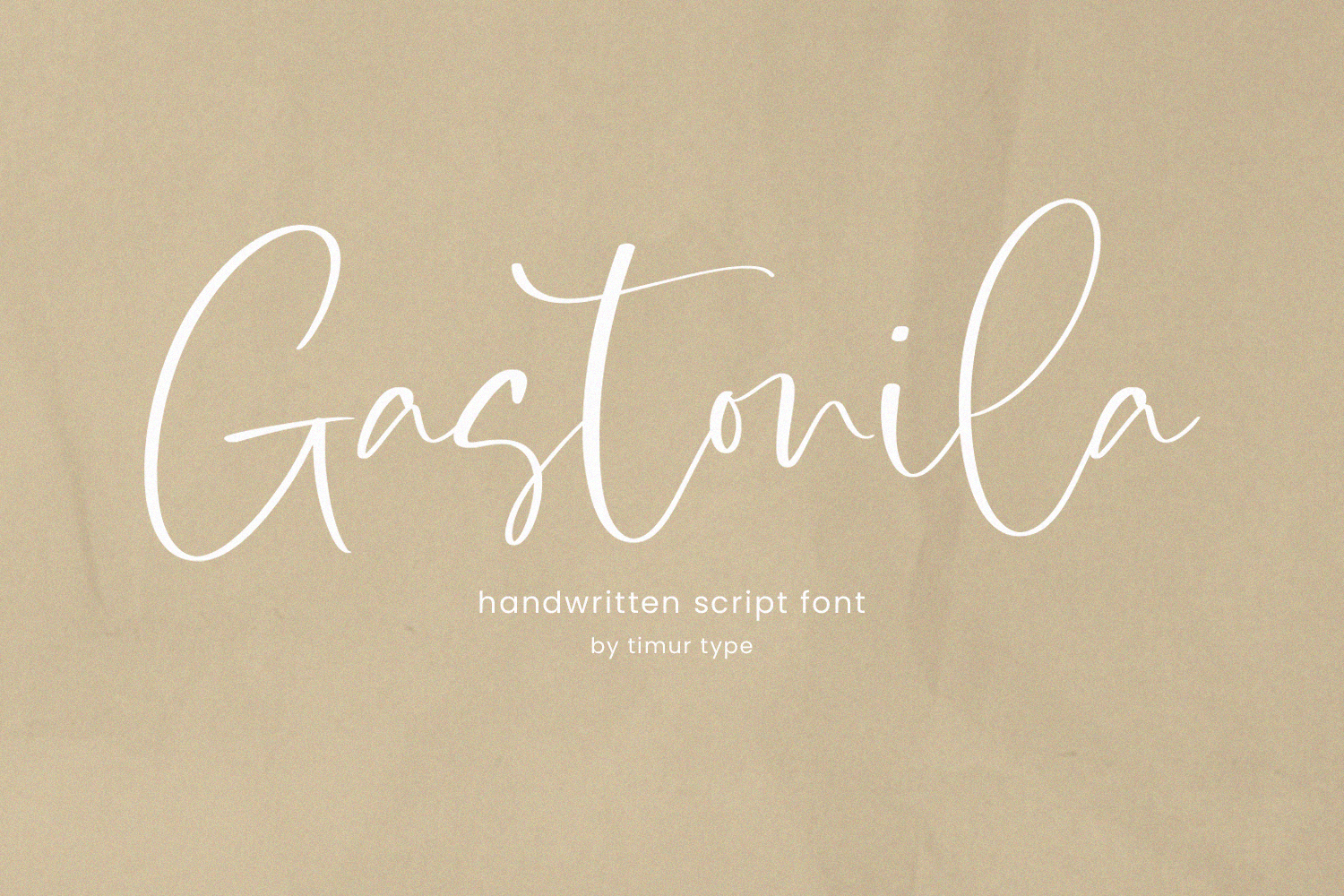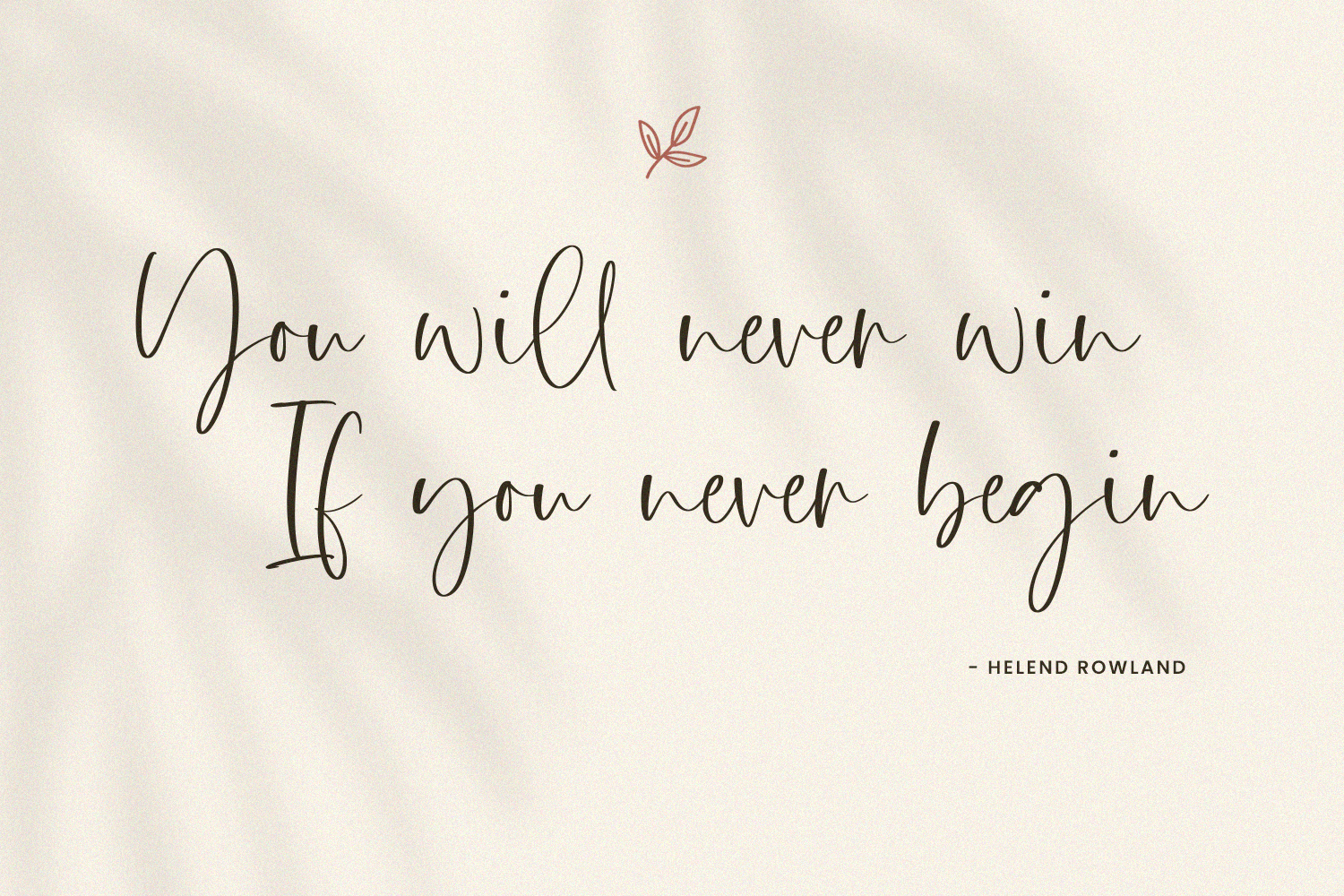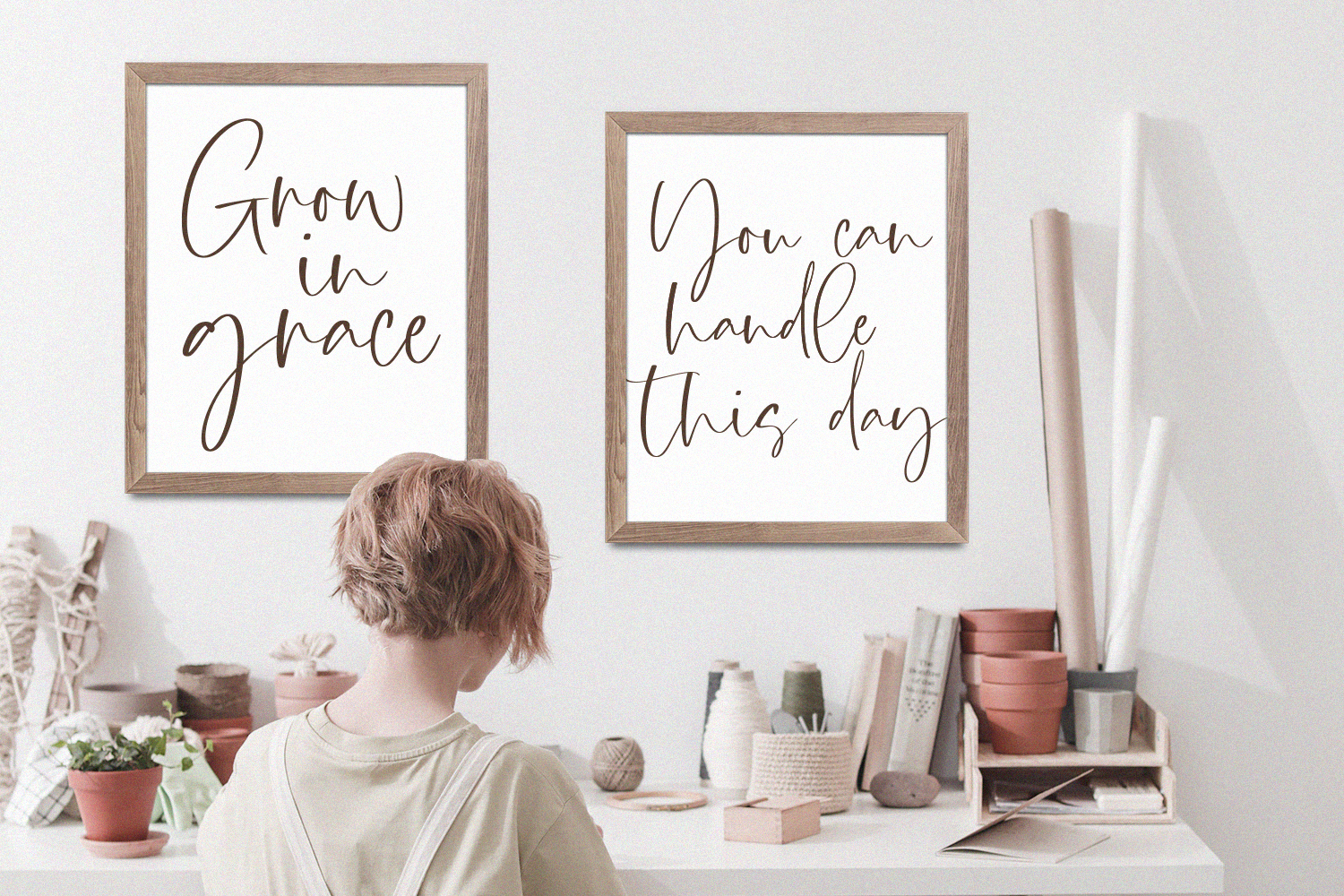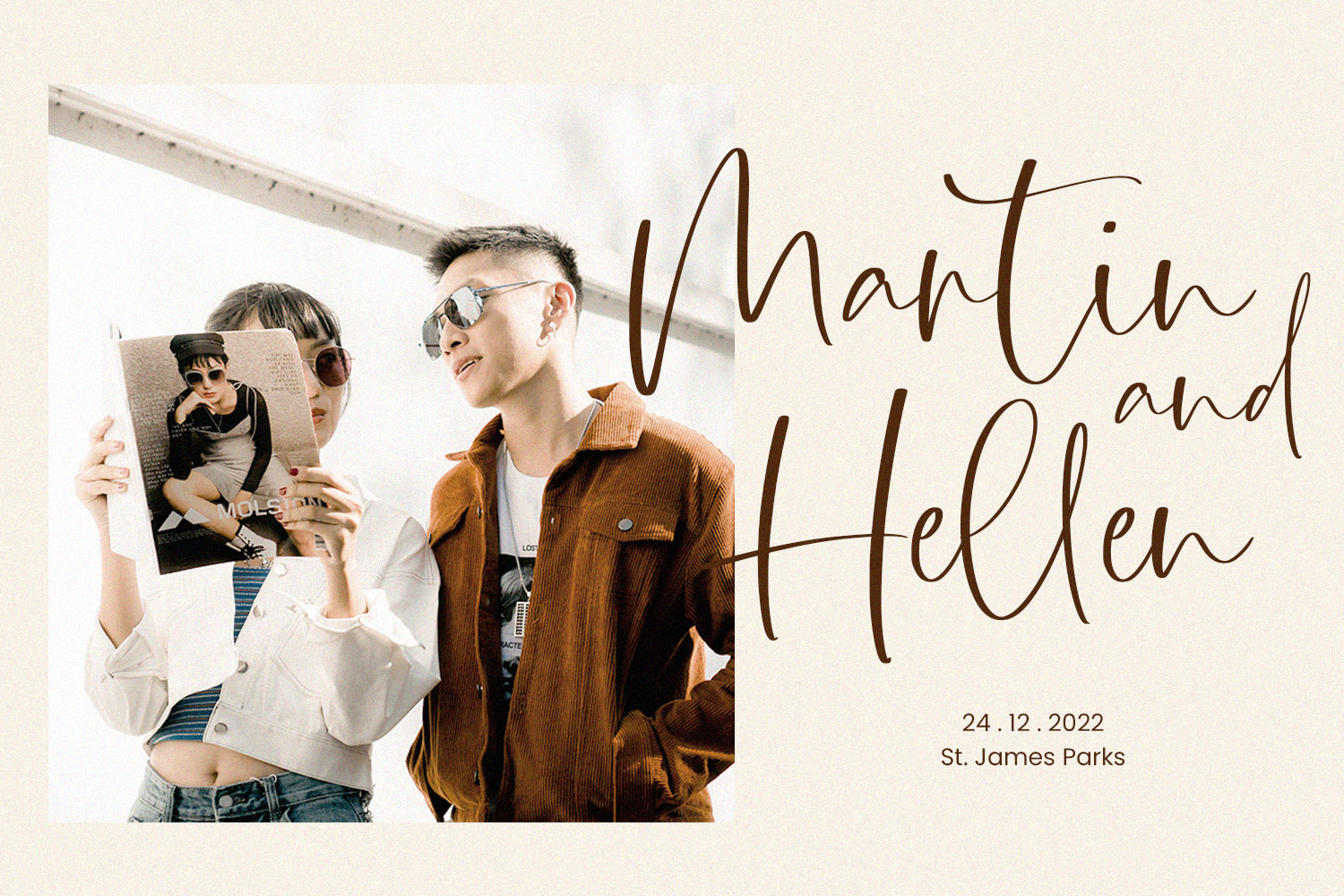
Gastonila Free Font
Gastonila Free Font is a charming and graceful handwritten font that exudes sweetness and delicacy. With its dainty and joyful aesthetic, this font is perfect for creating stunning wedding invitations, heartfelt cards, and any design that calls for a romantic and personalized touch. Let Gastonila add a touch of elegance and whimsy to your projects, capturing the essence of love and celebration in every stroke. This free typeface was designed by a talented Timur type. If you like it don’t forget to check out the full version.